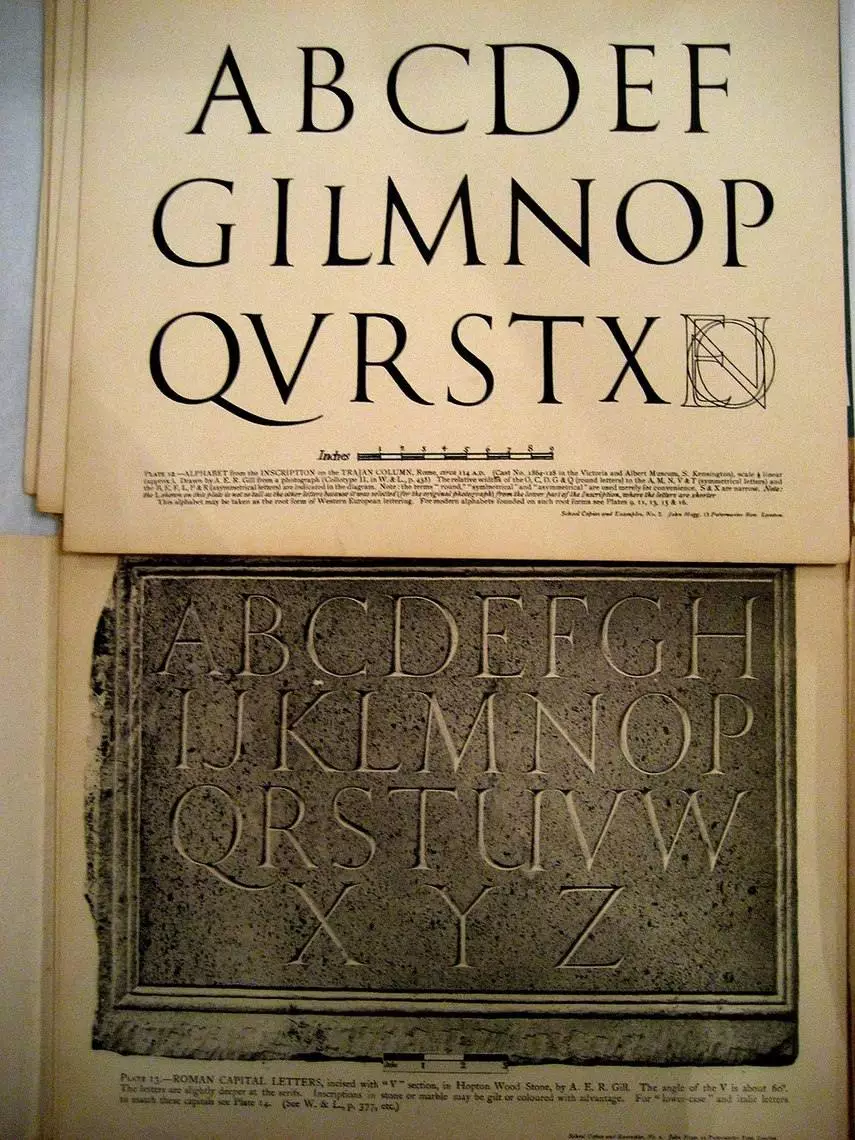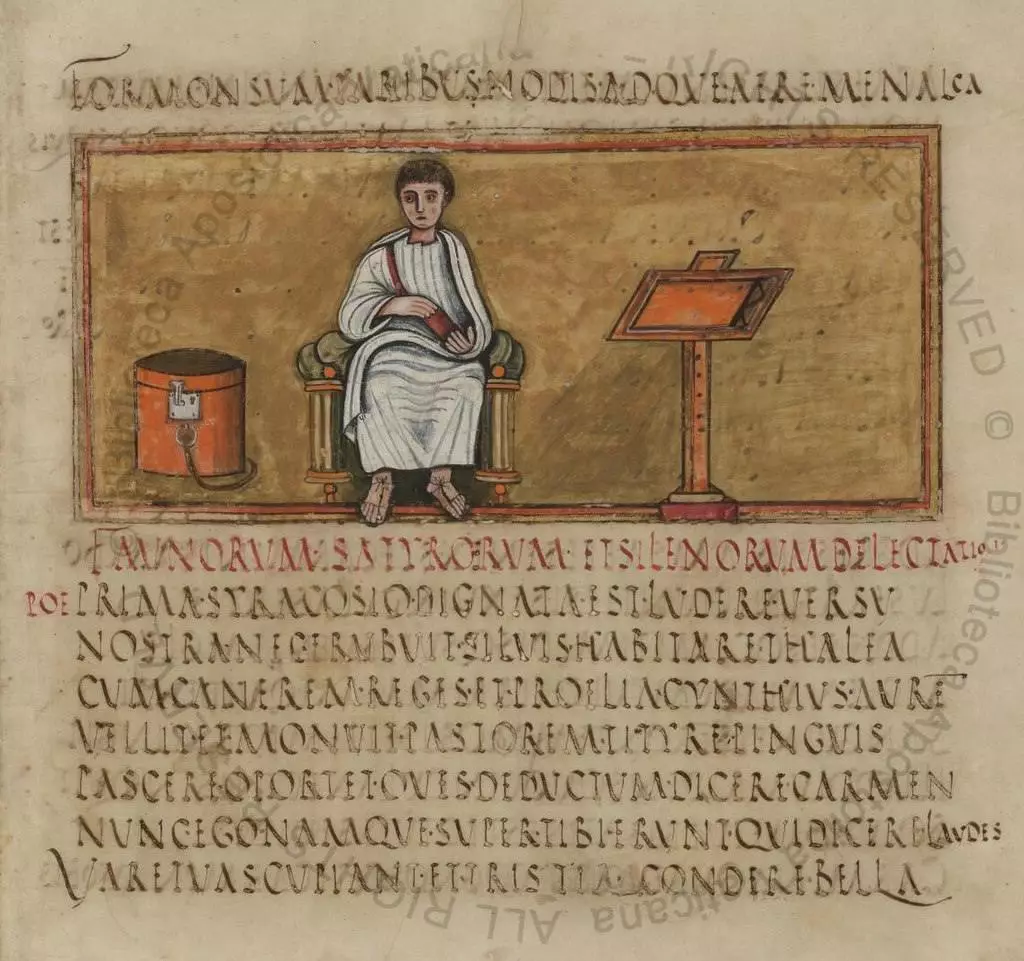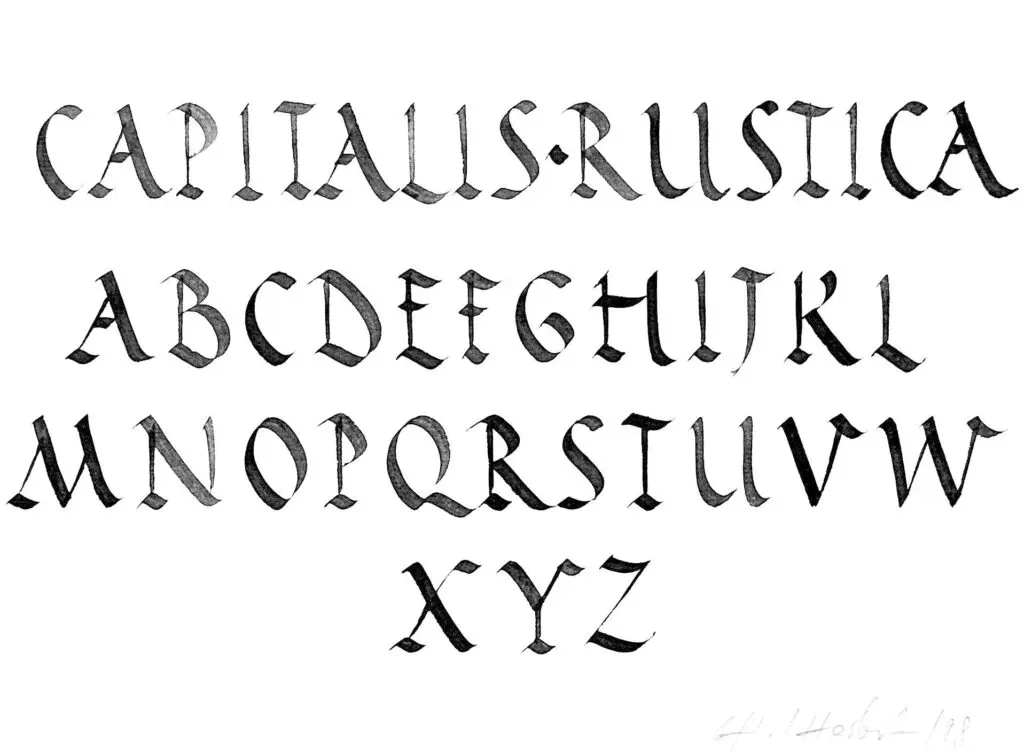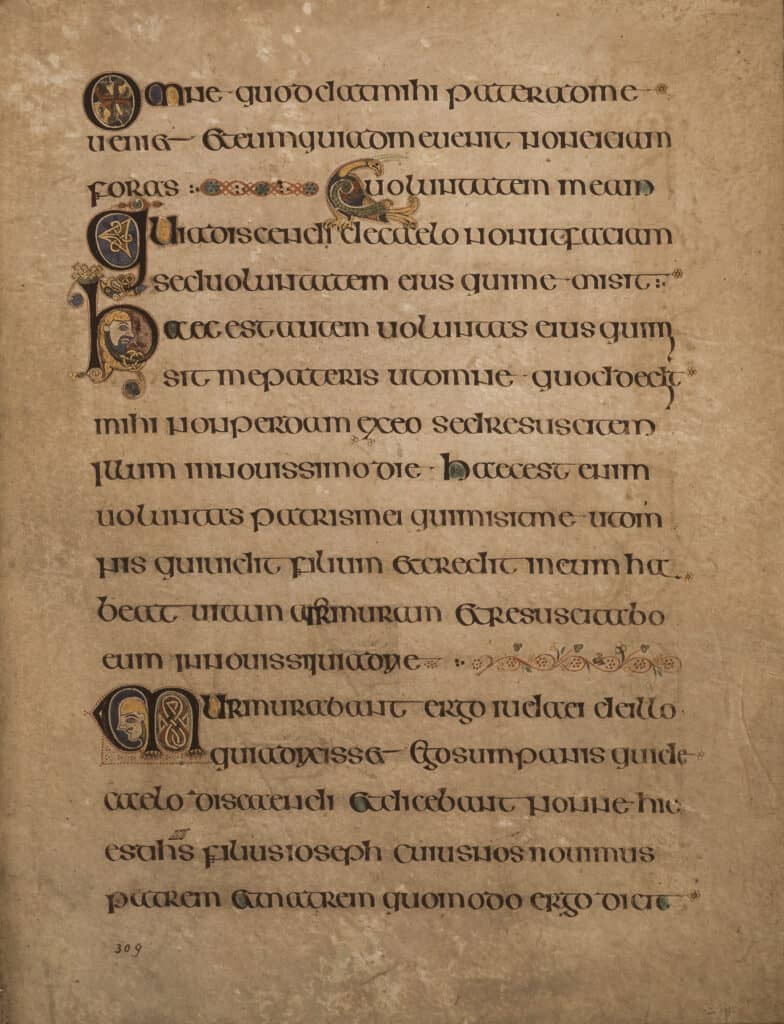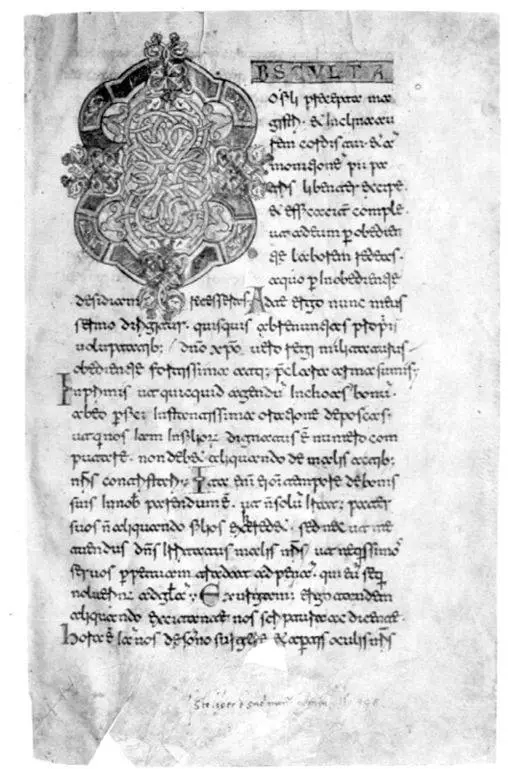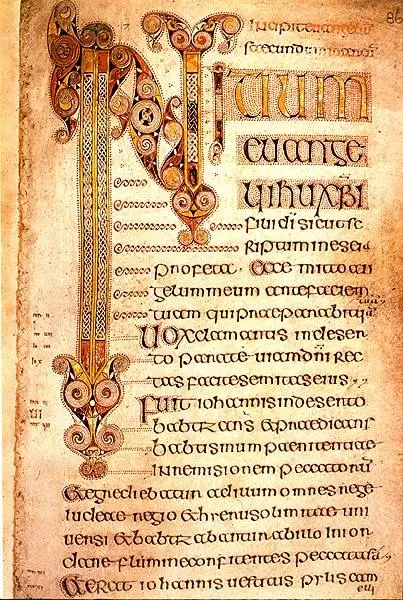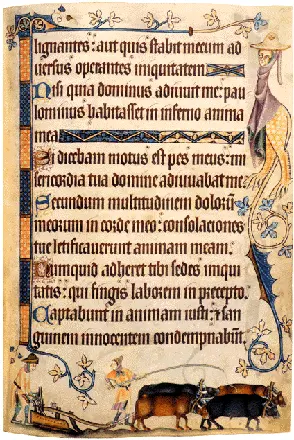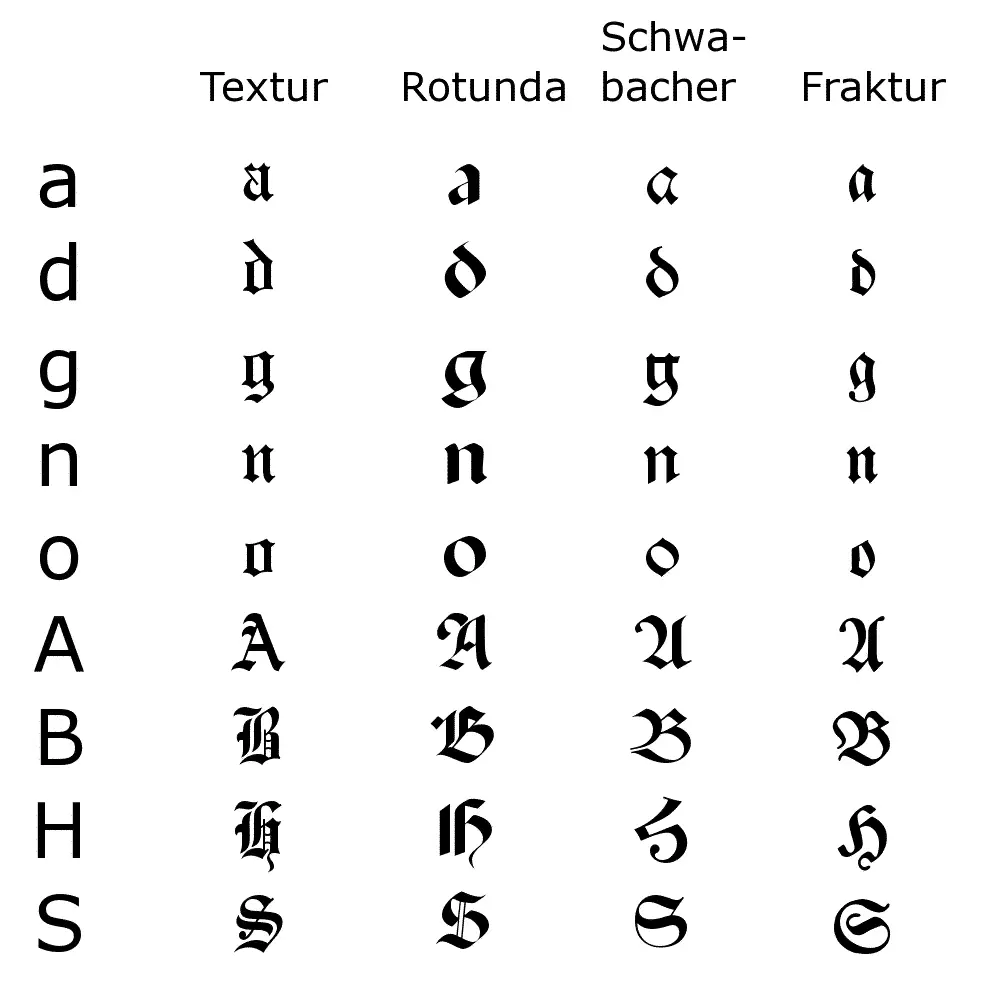
In this article, I will show you the history of calligraphy and how it evolved over more than 2000 years.
This article will mostly focus on the development of Western calligraphy and the Latin alphabet.
The purpose of this post is to present you with a clear and comprehensive calligraphy history timeline that provides you the essential information on major historical scripts that have emerged over many years.
Instead of just mentioning a bunch of different calligraphy scripts, I will take you back through time and give you a chronological overview of the major western calligraphy scripts throughout history.
Get ready to travel back in time and learn more about the rich history of calligraphy!
Let’s begin.
Before we start
There are a few things that I would like to mention.
Reviewing more than 2000 years of history in a single article is quite difficult, and obviously, I compressed the whole thing and just mentioned the most influential scripts.
I want to give you an idea of how handwriting developed in the western world.
Without any further delays, let’s begin.
What are the origins of calligraphy and writing?
The word calligraphy comes from the Greek Kallos and Graaphien, meaning beautiful and writing.
However, before calligraphy became known as an art form, it was just considered writing.
Writing has been integral to human civilization, from recording thoughts and ideas to sharing information and preserving knowledge.
Writing has played a major role in society’s development as we know it today.
The very first known record of writing dates around 3500 years BC in Mesopotamia (present-day Iraq). This is known as the Cuneiform script, which mainly consisted of making marks on wet clay tablets.
![Tablet with proto-cuneiform pictographic characters (end of 4th millennium BC), Uruk III. This is thought to be a list of slaves' names, the hand in the upper left corner representing the owner.[24]](https://www.lettering-daily.com/wp-content/uploads/2023/04/P1150884_Louvre_Uruk_III_tablette_ecriture_precuneiforme_AO19936_rwk-1024x921.jpg)
Origins of the alphabet
According to paleographers and historians, the origins of the alphabet can be traced back to Phoenicia around 1200 B.C. As Phoenician merchants embarked on their voyages across the Mediterranean, the Greeks, captivated by its efficiency, embraced the Phoenician alphabet during the eighth or ninth century B.C.
Following suit, the Etruscans not only adopted but also tailored the Phoenician alphabet to suit their own language and culture. This adapted alphabet, in turn, found its way into the hands of the Romans.
By the first century B.C., the Romans had already developed several script variations employing the Latin alphabet, marking significant developments in its evolution.
It’s important to note that writing and calligraphy is a broad term, and they appeared and evolved across different cultures worldwide. With that in mind, calligraphy and writing can be primarily divided through different cultures, such as –
- Chinese
- Western
- Indian
- Arabic
- Japanese
- Tibetan
- Etc.
In this article, I focus on Western calligraphy (the Latin alphabet), and how it developed throughout more than 2,000 years of history.
I will look closely at some of the most influential scripts that are popular and still practiced today.
Quick note – The term hand is used to describe how the writer interprets the script.
It’s also important to mention that a specific calligraphy script can be done in different styles.
My friend Jake Rainis created a perfect example of how the same calligraphy script can be done in multiple styles.
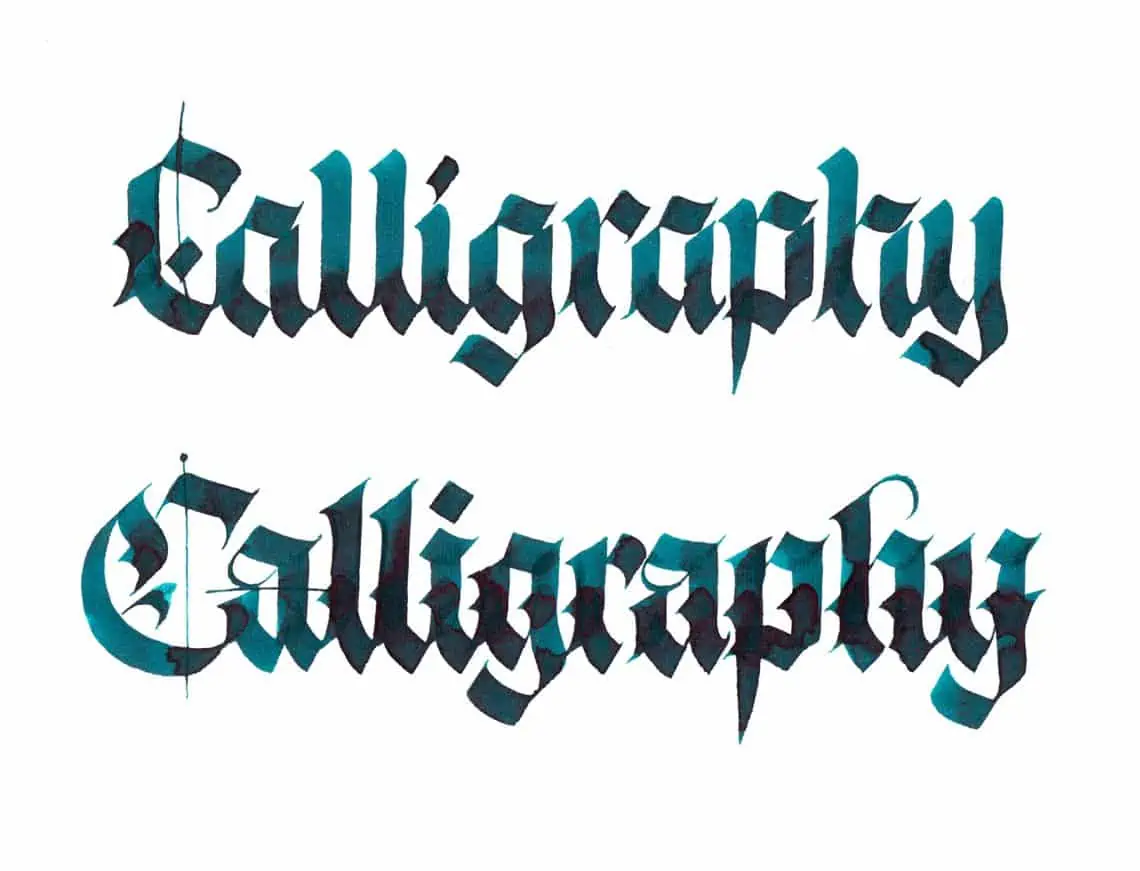
Western calligraphy & Latin alphabet – most influential calligraphy scripts + examples
These are some of the most influential historical periods that impacted the development of calligraphy in the context of the Latin alphabet (western calligraphy).
- Antiquity – Roman Empire
- Post Roman – Uncial & Insular period
- Middle ages
- Renaissance
- Baroque
- Modern
I will review each of these periods and mention the most important scripts.
Antiquity – The Roman Empire
The Latin alphabet dates back to around 700 BC, and the Roman Square Capitals emerged around the first century AD in Rome.